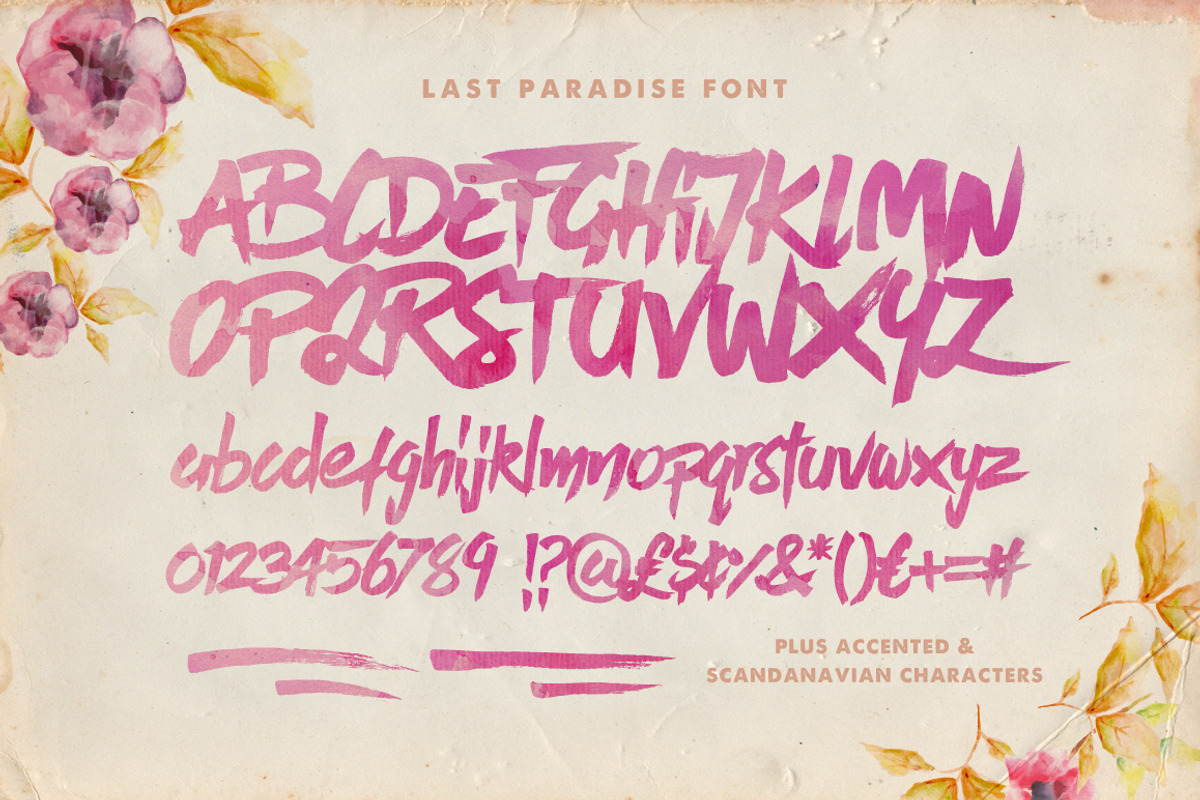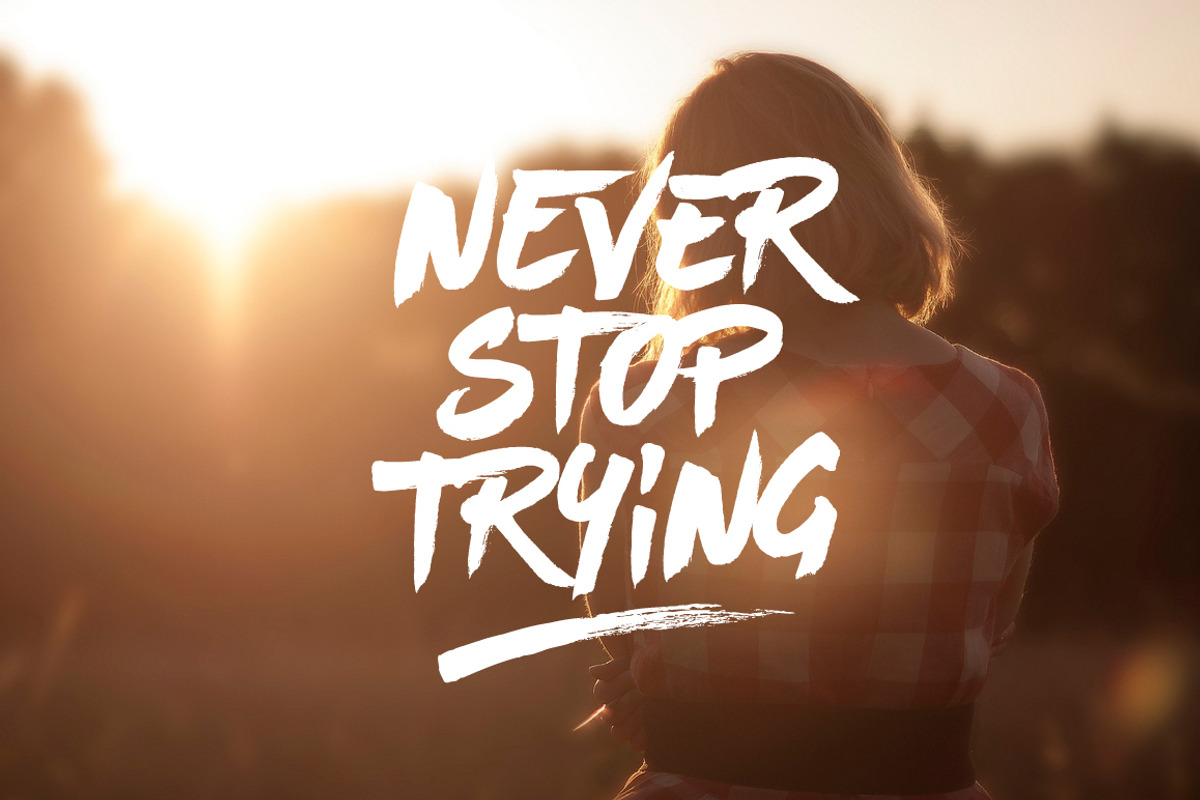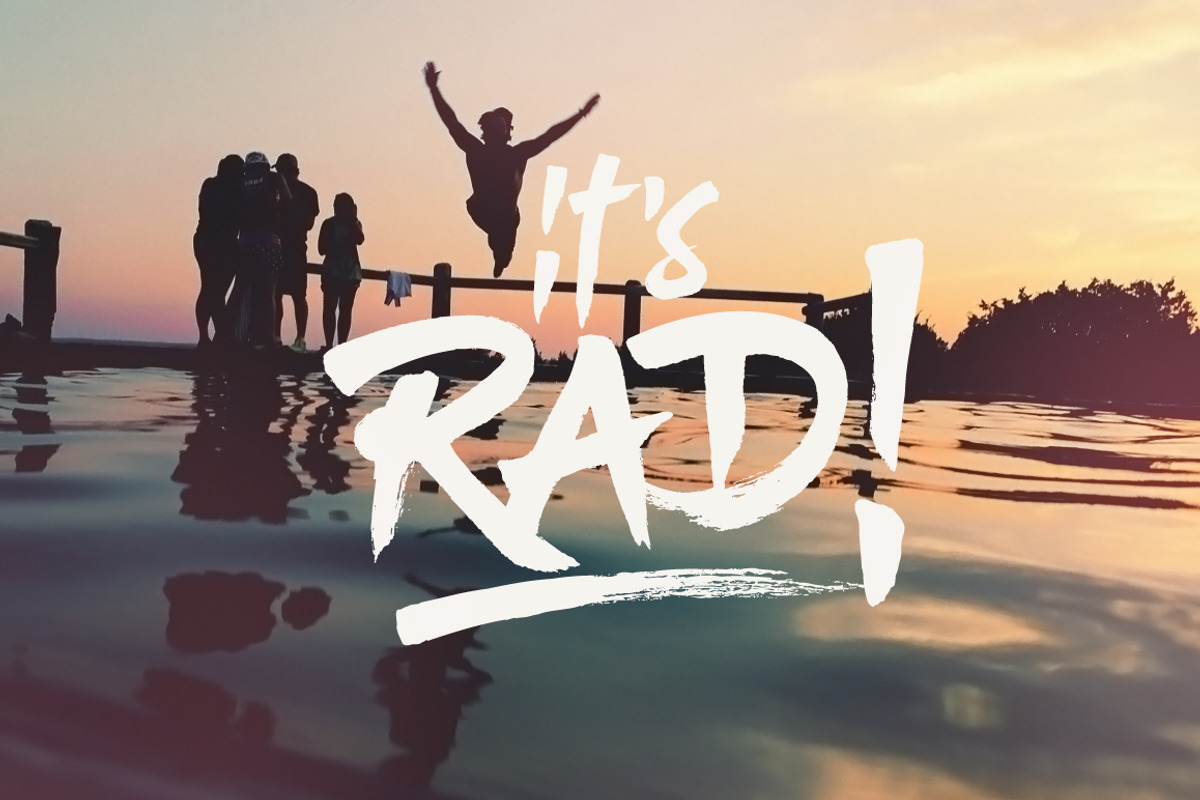
Last Paradise Font
Last Paradise is a handmade bold-brushy goodness! It comes with upper and lowercase characters, punctuation, numerals, and supports international languages. Also try the characters { } [ ] for some bonus swashes to pop-out your text!
Perfect For: Attention-grabbing header text, logos, clothing designs. or anything which needs a bold & loud text with a personal touch. Works great as an overlay to your Instagram photos!
Due to the fonts success we’ve added 15 new alternate characters! Accessible in the Adobe Illustrator Glyphs panel, or under Stylistic Alternates in the Adobe Photoshop OpenType menu.